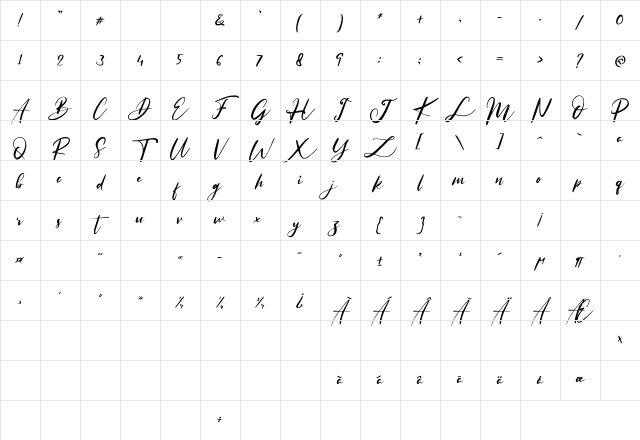
Complete Really Distinct Regular glyph index. Displaying only characters natively supported by Really Distinct Regular font.
Really Distinct is a composed and adaptable typeface that performs quietly and consistently across a wide range of design contexts.